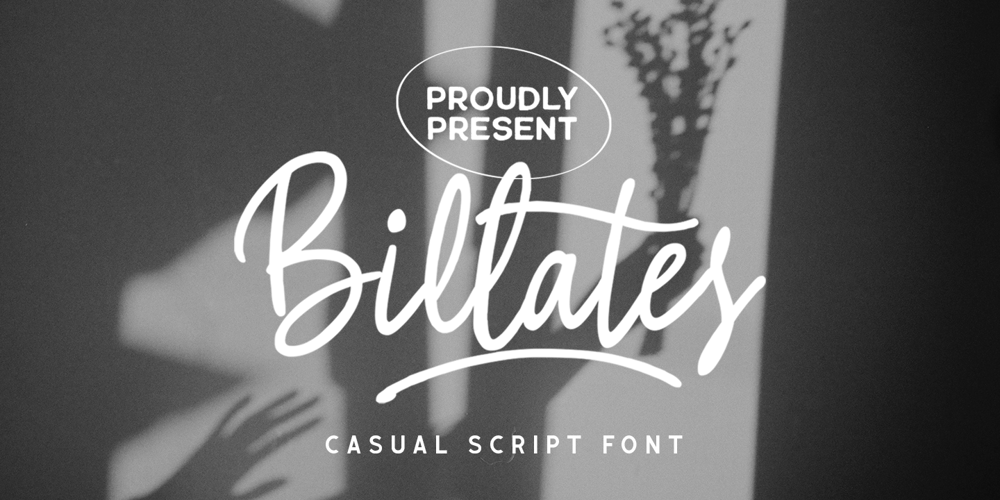
The Billates Font Family was designed by Hendry Juanda and published by Letterhend. The Billates contains 1 styles and family package options. Looking for a script font with a casual flair? Look no further than Billates! With its natural and free-flowing style, this font exudes a relaxed and informal look that is perfect for capturing a laid-back atmosphere. From handwritten notes to product packaging, Billates brings a touch of casual elegance to your design projects.Features : Uppercase & lowercase Numbers and punctuation Alternates & Ligatures Multilingual PUA encoded We highly recommend using a program that supports OpenType features and Glyphs panels like many of Adobe apps and Corel Draw, so you can see and access all Glyph variations.